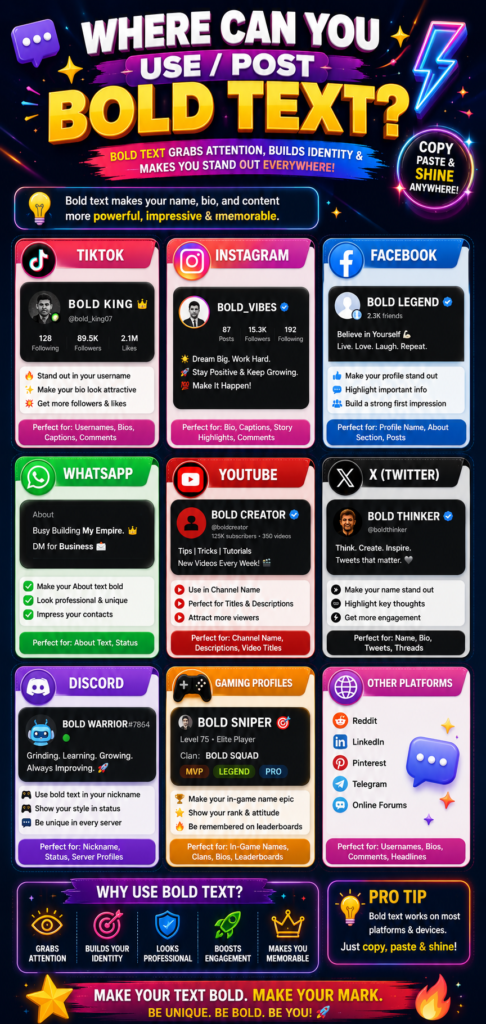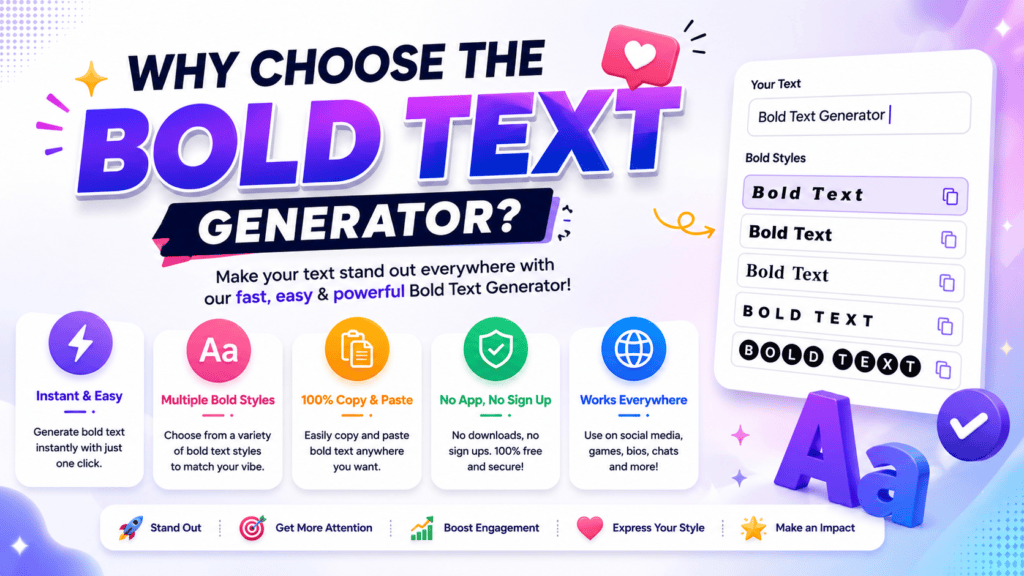
How to Make Bold Text Without Installing an App Easy Guide
Digital design begins where native constraints end. Seeking attention on social media forces individuals to transform plain text. We bypass software entirely, finding an effortless way to make posts stand out using raw Unicode characters.
Injecting these styled glyphs directly into Instagram captions, Twitter updates, or professional bios immediately establishes a striking visual hierarchy. Simply paste the generated bold fonts anywhere online to strategically emphasize your core context seamlessly today.
What Is Bold Text?
As a designer, altering typography means adjusting weight. Increasing thickness creates instant emphasis, forcing specific characters to stand out immediately. This mechanical change establishes a clear visual hierarchy across any digital platform or written communication.
Beneath the visual surface, this modern bold style does not require complex systemic files. Instead, Unicode automatically transforms standard text into heavier alternative glyphs. This contrast imparts profound significance compared to the basic surrounding text.
Where Can You Use / Post Bold Text?
Modern cyber environments offer uncommon channels across expression. Structuring a customized Instagram bio or publishing dynamic social media posts elevates viewer interaction. Tweaking an account username or refreshing network profiles expands virtual audience noticeability significantly.
Injecting distinction inside a reddit comment or during executive presentations alters how insights feel. Experienced authors leverage these tactics across news websites and throughout Reddit to capture interest without ever relying on external software installations.
When / How to Use Bold Text Thoughtfully
Excessive styling often destroys pure design aesthetics. Experienced professionals know that human eyes quickly reject chaotic layouts. We must carefully construct a clean visual hierarchy, selecting specific words strategically to enhance readability rather than cluttering.
Isolation makes heavy headings work. Overusing weight will instantly diminish impact. True important information requires breathing room; sparse bold text isolates crucial key points beautifully without ever triggering severe visual fatigue for digital modern readers.
How to Convert Text to Bold (Step-by-Step)
Skipping installation scripts shifts modern formatting toward a bold text converter instantly. Operating within the digital realm requires direct interaction. I input strings directly into the Input field, activating underlying hidden architecture without any complications.
Systems process these obscure characters automatically via an established universal code layer. This systemic translation populates your system clipboard smoothly. Simply paste the newly styled results anywhere, completely avoiding external standalone application downloads very safely.
How Does This Tool Work?
Bypassing native software restrictions, the cloud generator processes your input text via an open protocol. Modern computers instantly map strings, completely avoiding separate font files entirely. They apply a shared language fulfilling precise global specifications.
When users need to format text, utilities do not alter system weight. Instead, they swap standard glyphs for specialized bold characters defined within the Unicode standard, allowing various applications to display genuine bold letters natively.
Why Choose the Bold Text Generator?
As an expert managing clean interfaces, utilizing a standardized system ensures immediate digital compliance. This structural design allows users to bypass restrictions. Selecting specific bold font styles renders visual shapes using unique character codes directly.
To maximize user engagement across any modern website, publishers must create an immediate visual impact. Instead of relying on heavy HTML configurations, these native fonts seamlessly draw attention alongside complex digital emojis globally and efficiently.
How to Post Bold Text on Facebook
My Facebook posts looked dull among crowded feeds. Seeking a solution, I used an online Font Generator to generate distinct characters. I would copy the styling, altering my normal text inside every caption for impact.
Transforming comments and user profiles requires no software. This method helps emphasize specific places where raw content demands attention. Audiences notice those bolded expressions instantly, bypassing standard styling limitations on social feeds with absolute ease.
Bold Text (Unicode Alphabets)
We bypass standard system fonts by utilizing styled Latin alphabets embedded directly within standard encoding. I often observe academics leveraging these unique characters for specialized purposes, injecting visual emphasis into their raw digital format documents.
What does the bold font style make the text?
Applying bold fonts alters standard layout characters, instantly producing attention-grabbing text and eye-catching statements. This heavy visual weight serves to emphasize specific key points and draw attention across diverse digital platforms very easy and free.
When should you use bold words?
In my graphic design work, deciding when to emphasize specific details is crucial. Always use bold text sparingly in headlines to draw the eye, ensuring your message stays clear and never becomes difficult to read.